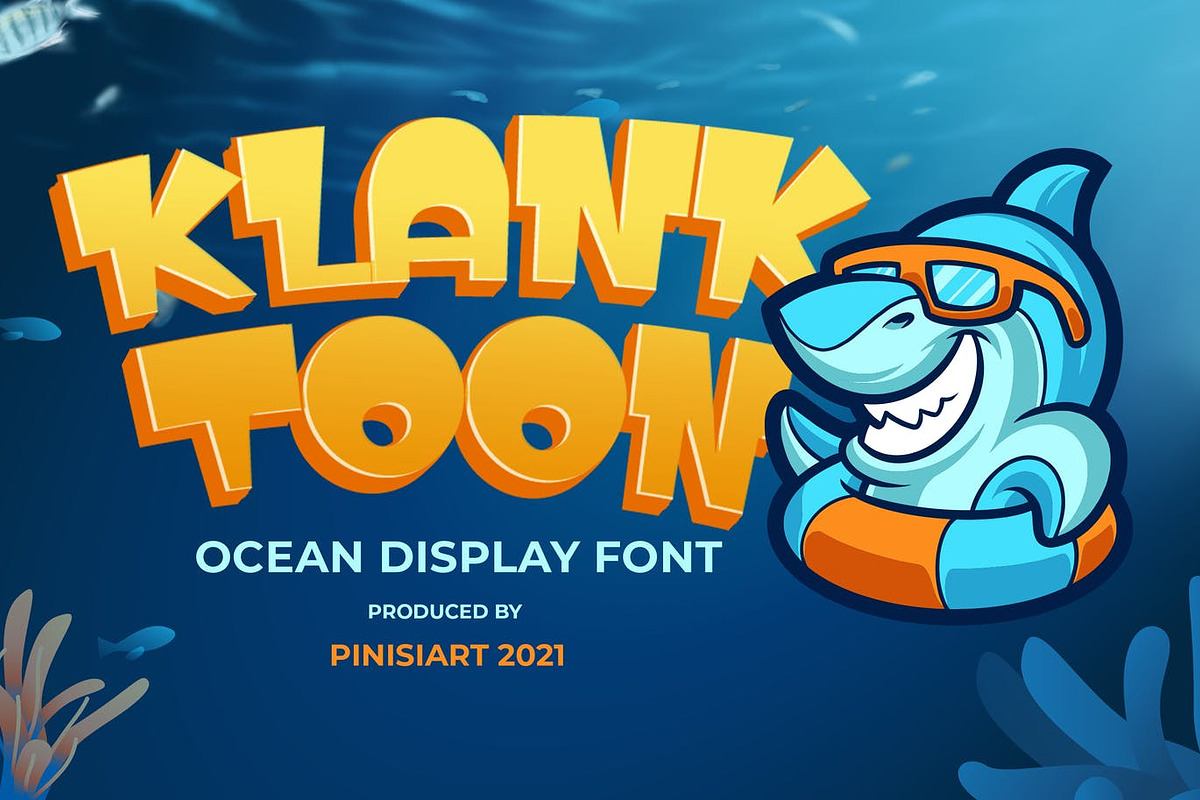
KLANKTOON – Cartoon Font Free Download is a fun and lively typeface inspired by cartoon characters and playful designs. With its rounded edges, bold letterforms, and whimsical style, this font is perfect for creating fun posters, children’s books, comic strips, game designs, logos, and any project that requires a lively, animated touch.
Using the KLANKTOON – Cartoon Font Free Download adds a vibrant, animated energy to your typography. Whether you're designing for kids' content, creating playful branding, or crafting eye-catching event promotions, this font brings personality and charm to your designs.